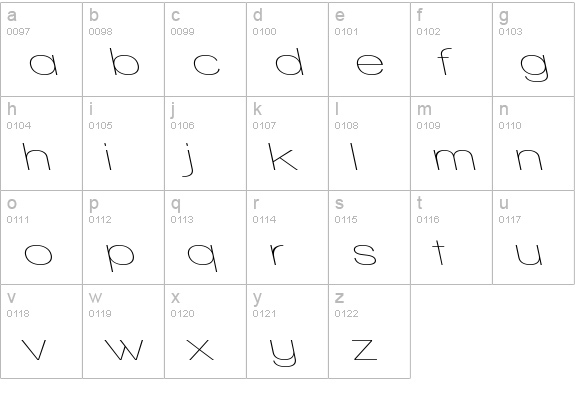
Walkway Expand RevOblique is a captivating and versatile font that effortlessly combines modernity with sophistication. This font is the perfect choice for designers and creatives looking to add a touch of elegance and uniqueness to their projects. With its sleek and elongated letterforms, Walkway Expand RevOblique exudes a sense of fluidity and movement, making it ideal for a wide range of applications. Whether you're designing a logo, creating a poster, or crafting a website, Walkway Expand RevOblique will elevate your project to new heights. Its bold and dynamic appearance adds a contemporary edge while maintaining a sense of professionalism. The oblique slant adds a subtle twist, giving your text a stylish and eye-catching look. One of the most remarkable features of Walkway Expand RevOblique is that it is completely free. Yes, you read that right – this font can be downloaded for free at FontsMarket.com. This means that you can enhance your designs without any financial constraints, making it an excellent choice for both personal and commercial projects. With its extensive character set, Walkway Expand RevOblique supports multiple languages, making it accessible to a global audience. Its legibility and clarity ensure that your message is conveyed effectively, regardless of the language or context. If you're seeking a font that seamlessly blends contemporary aesthetics with functionality, Walkway Expand RevOblique is the perfect choice. Download it for free at FontsMarket.com today and unleash your creativity with this captivating font.